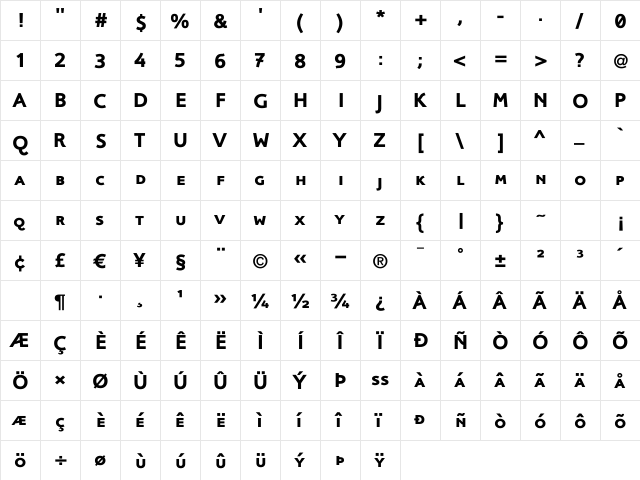
FoxSmallCapsBold Regular
Design Context for FoxSmallCapsBold Typeface
FoxSmallCapsBold offers clean, dependable letterforms without strong stylistic allegiance, making it a practical choice for designers who need flexibility. The heavy weight commands attention and anchors typographic hierarchies.